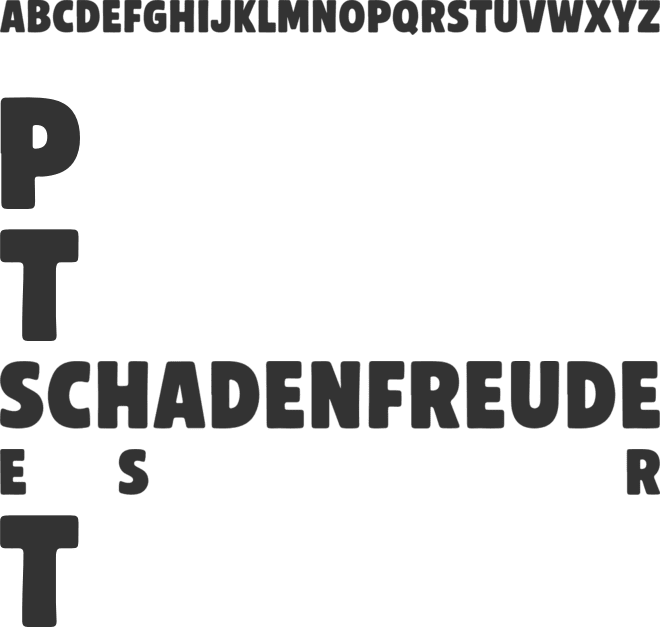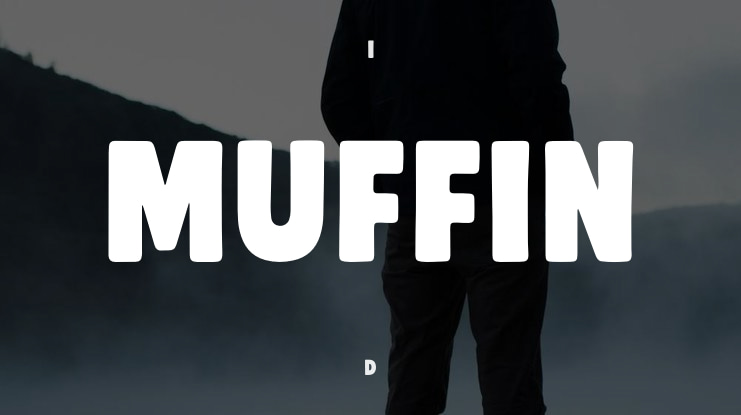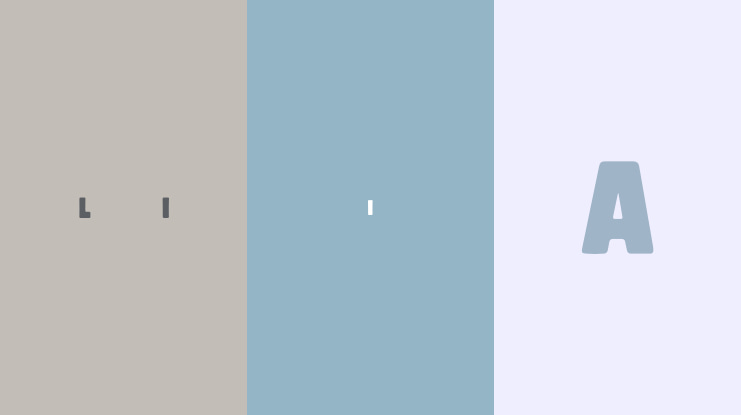
MUFFIN Font
🎨 Font Name: Muffin by Minimalist Art Studio
🎨 Font Description: Muffin is a fat and chunky sans serif with two styles—perfect for food packaging, playful branding, and bold display headlines.
✔ Complete Latin set + multilingual diacritics
✔ Alternates, stylistic sets & ligatures
✔ Numbers, small caps, and extended punctuation
✔ Bonus italics and family styles